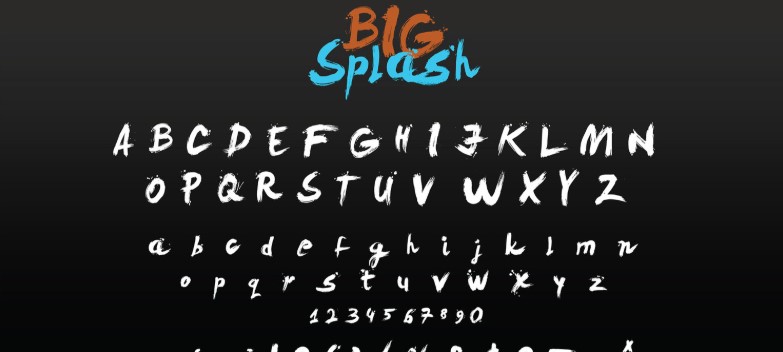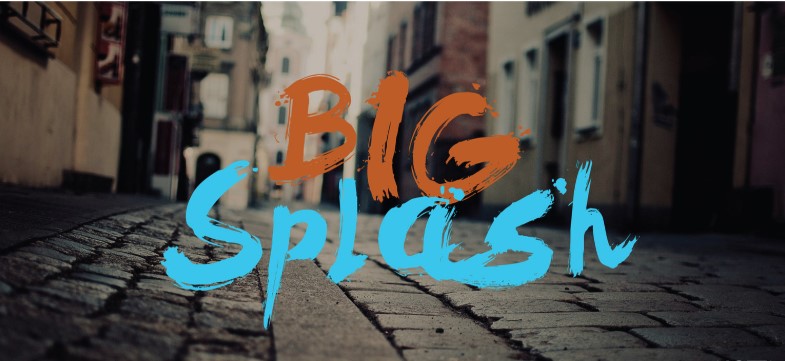
Big Splash Brush Font
Big Splash Brush Font is famous for its textual content generator characteristic. This typeface proportion similarity with the flower font. That is one of the high-quality fonts. This font is an adorable collection specially designed for easy and comfy on-show assessment.
It’s orderly, has the enjoyment of the extremely good detail. It furthermore additives 4 hundred glyphs and change characters. The font consists of all characters in every uppercase and lowercase letters. Now, you may have your personal preferred serif font and it may or might not appear on our list, however, we propose taking inside the route of having a test the alternatives.